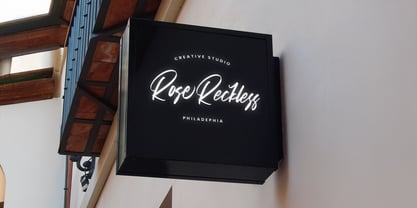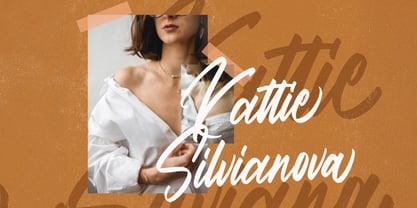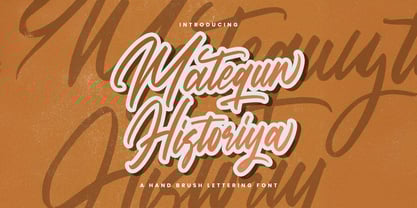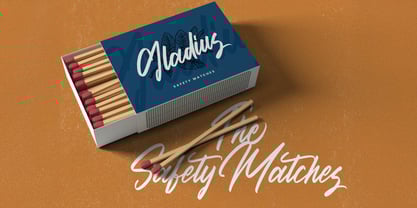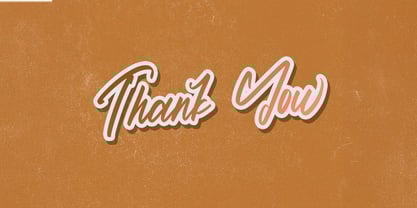
Matequn Historiya
by Stringlabs Creative Studio
The Matequn Historiya Font Family was designed by Virgiawan Listanto and published by Stringlabs Creative Studio. Matequn Historiya contains 1 styles. More about this family
Matequn Historiya is a sophisticated handwritten font with a timeless, artistic flair. Its fluid strokes and refined details give off the feel of an elegant signature, making it perfect for designs that aim to be both stylish and personal. Whether you're working on branding, invitations, or creative projects, Matequn Historiya adds a graceful, handwritten touch that feels authentic and memorable.
Designers: Virgiawan Listanto
Foundry: Stringlabs Creative Studio